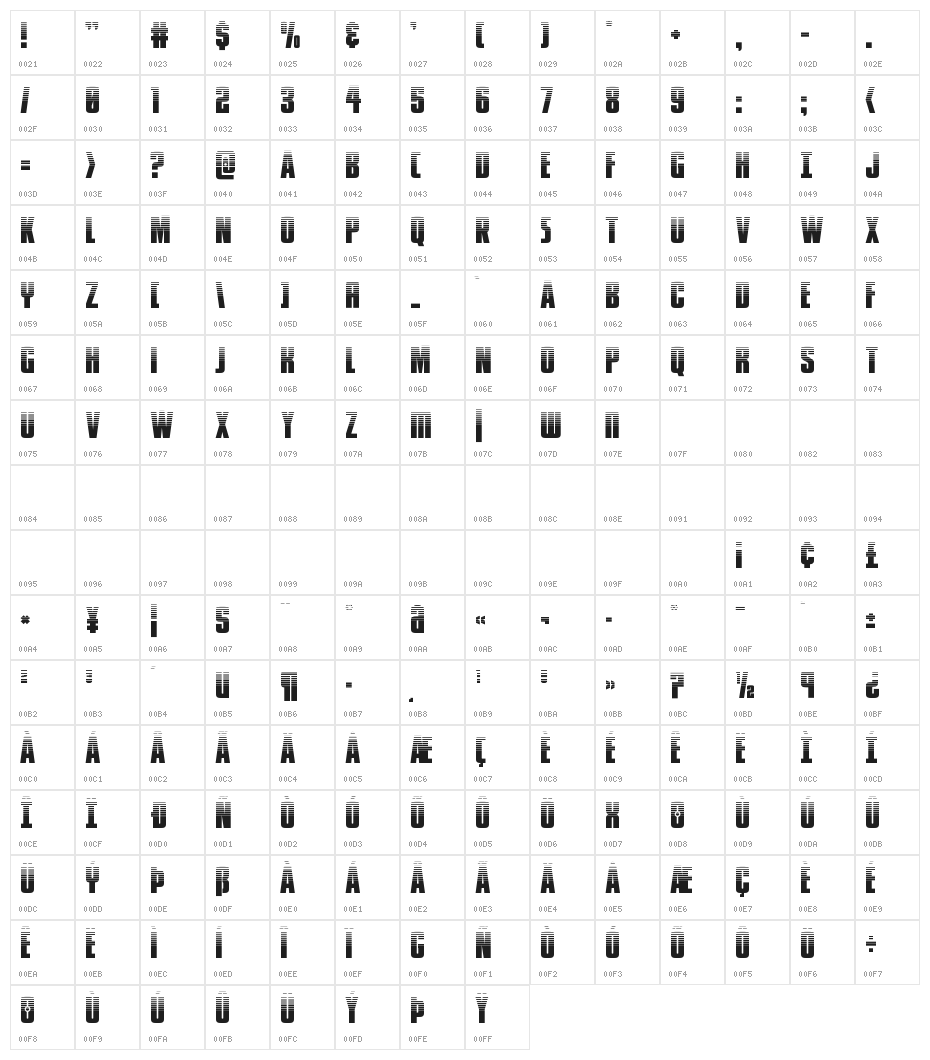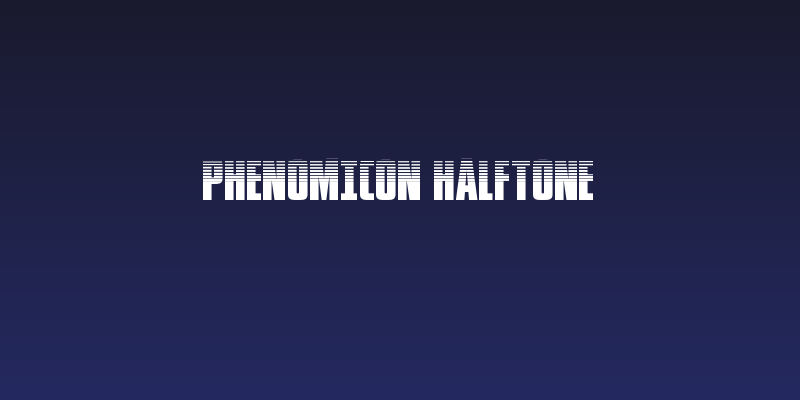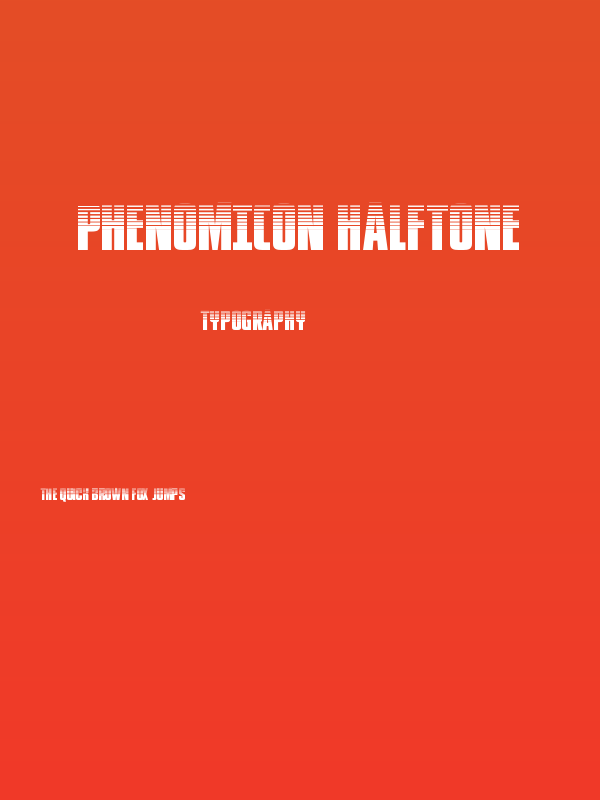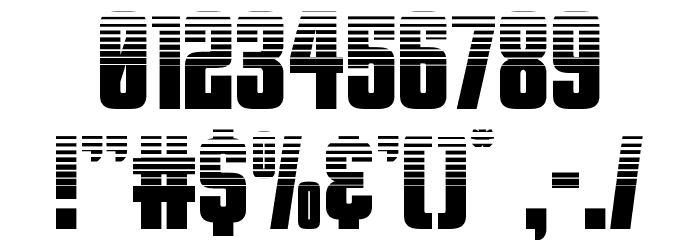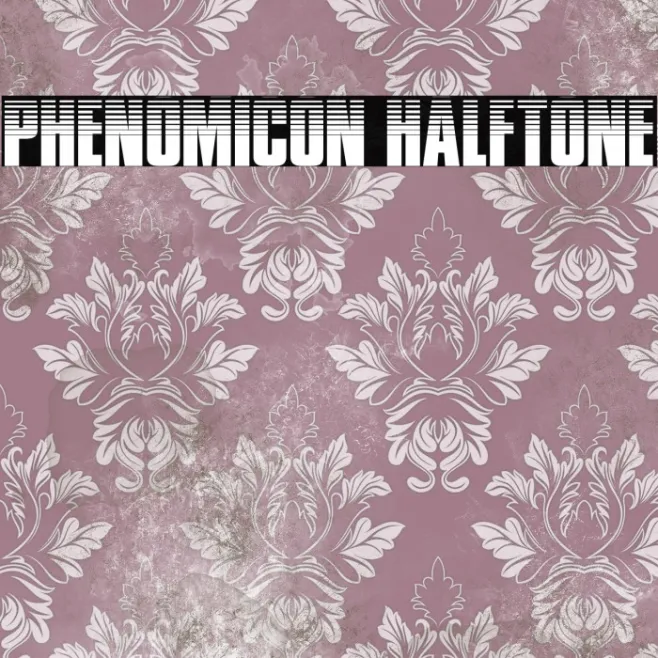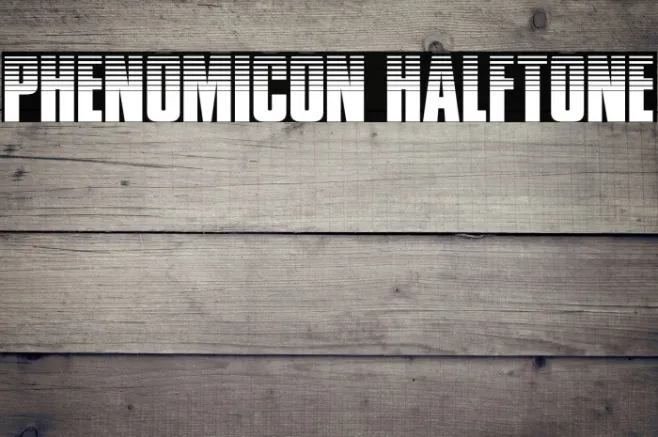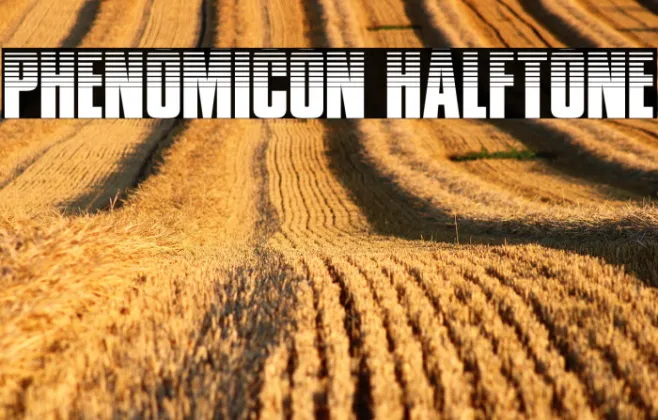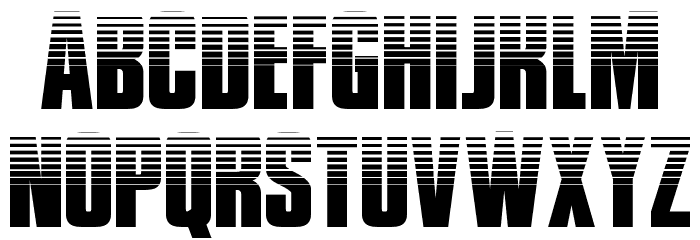
Phenomicon Halftone Font
Phenomicon Halftone Description
This font features a bold, modern design with a unique halftone effect that creates a sense of movement and depth. The uppercase letters are particularly striking, with a strong presence that commands attention. The numbers and special characters maintain the same boldness, ensuring consistency across all uses. The halftone effect is achieved through horizontal lines that gradually increase in thickness, giving the font a dynamic and contemporary feel. This style is perfect for projects that require a bold statement or a modern aesthetic.